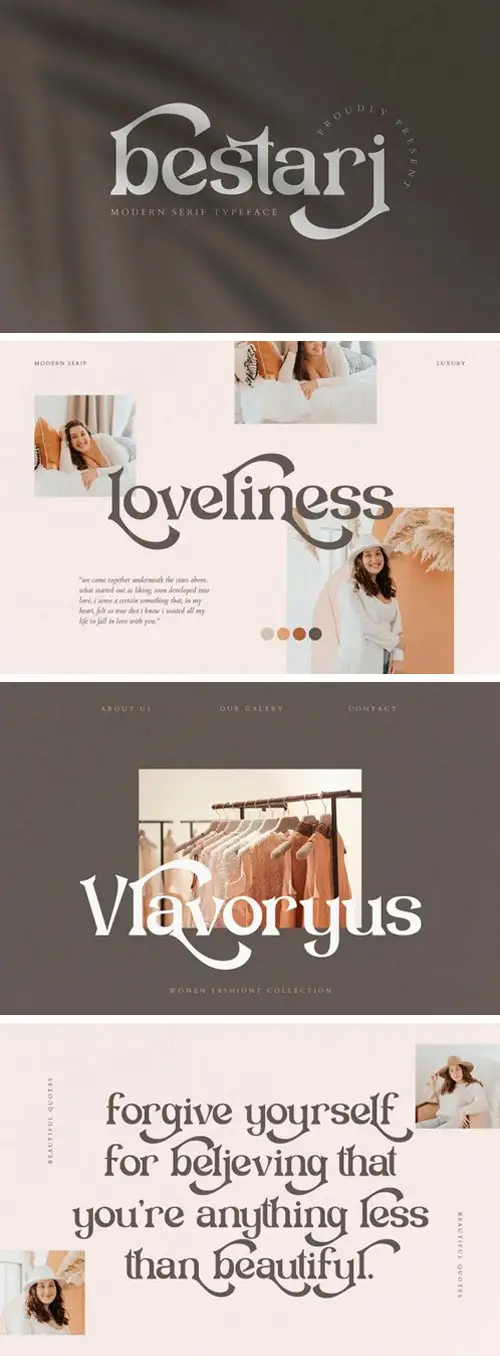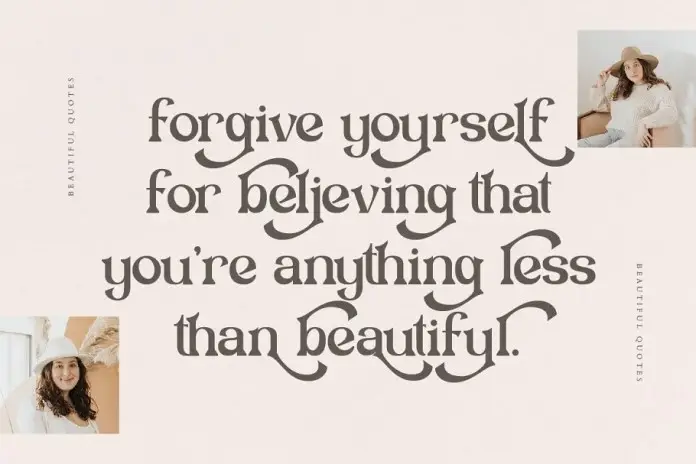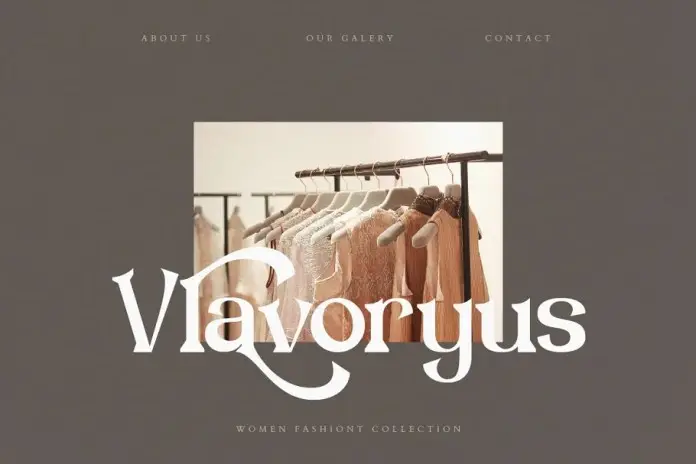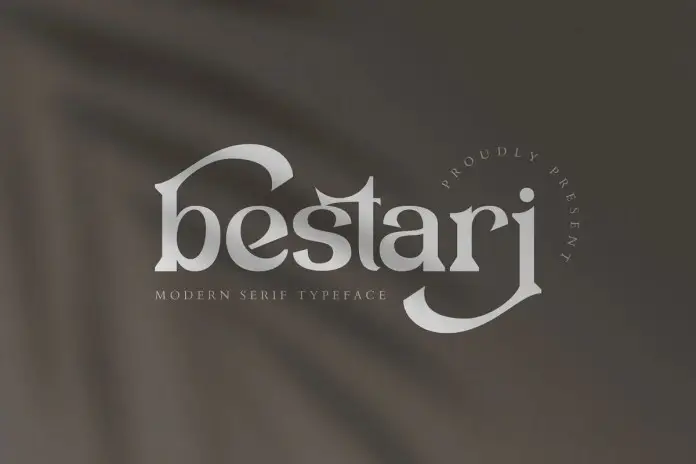
Bestari Serif Font
Introducing the Bestari Serif Font, a beautifully crafted typeface that combines elegance with readability. This font is perfect for a variety of applications, including branding, logos, web design, print materials, and user interfaces.
• Stylish serif design for a classic look
• Multiple weights available for versatility
• Clean and legible characters
• Ideal for creating eye-catching headlines and body text
• Use in both digital and print projects for a sophisticated touch
• Perfect for invitations, brochures, and branding materials